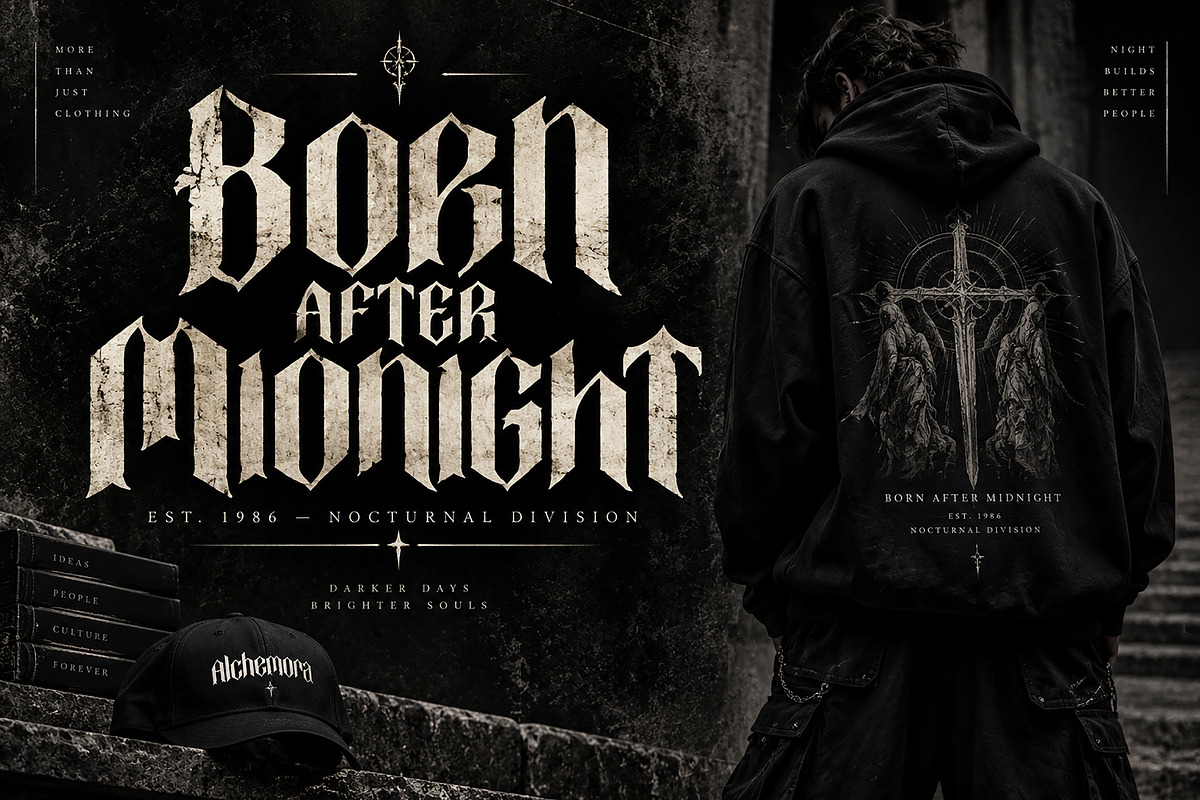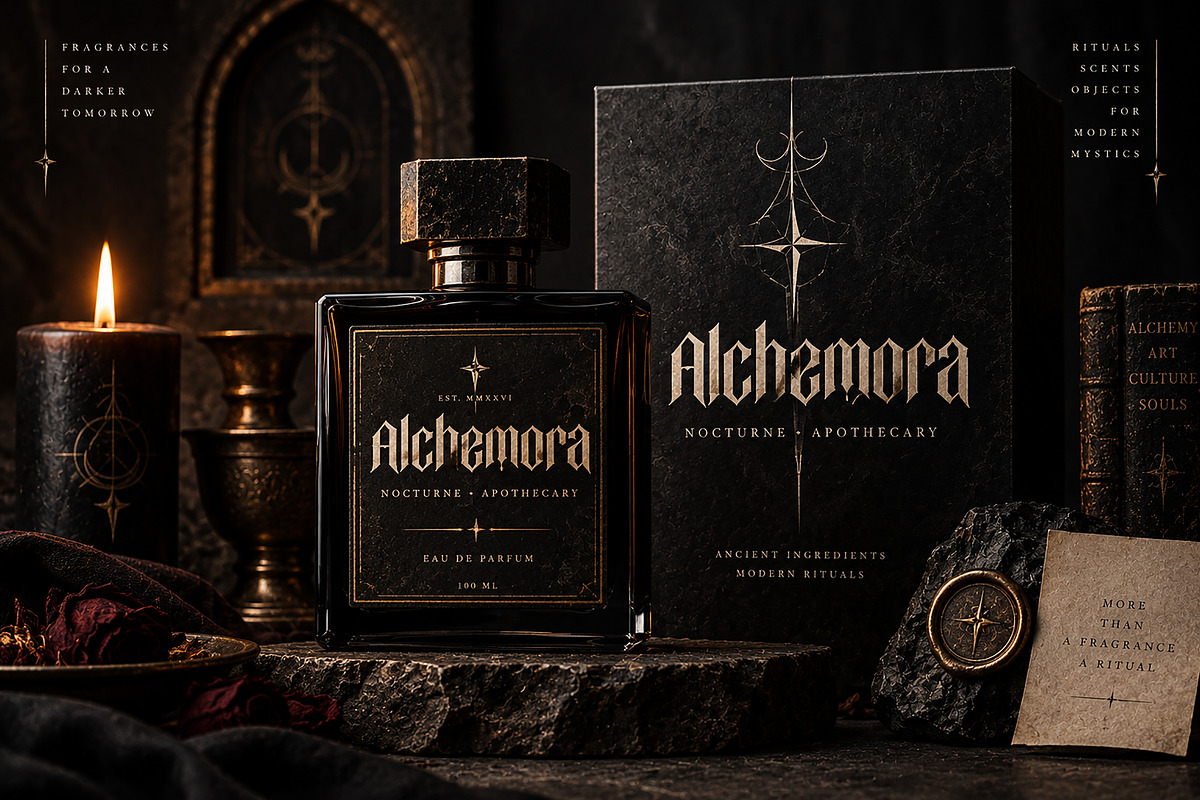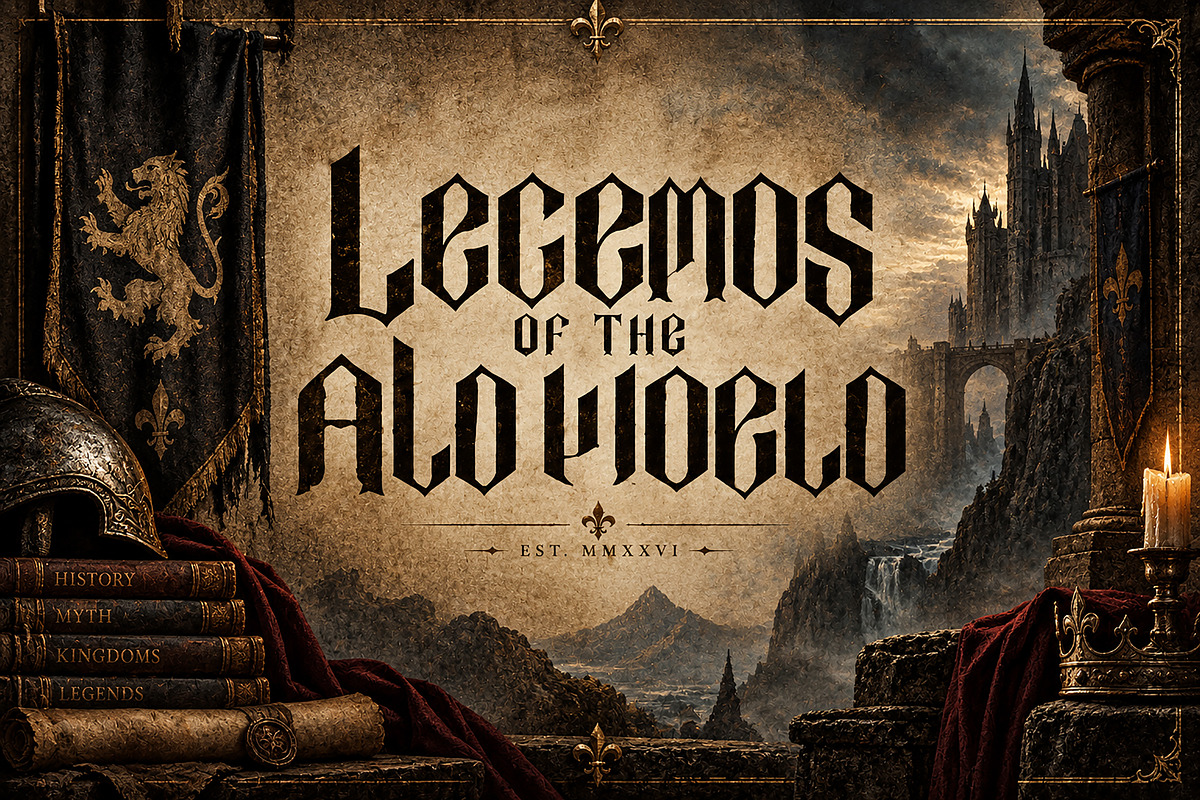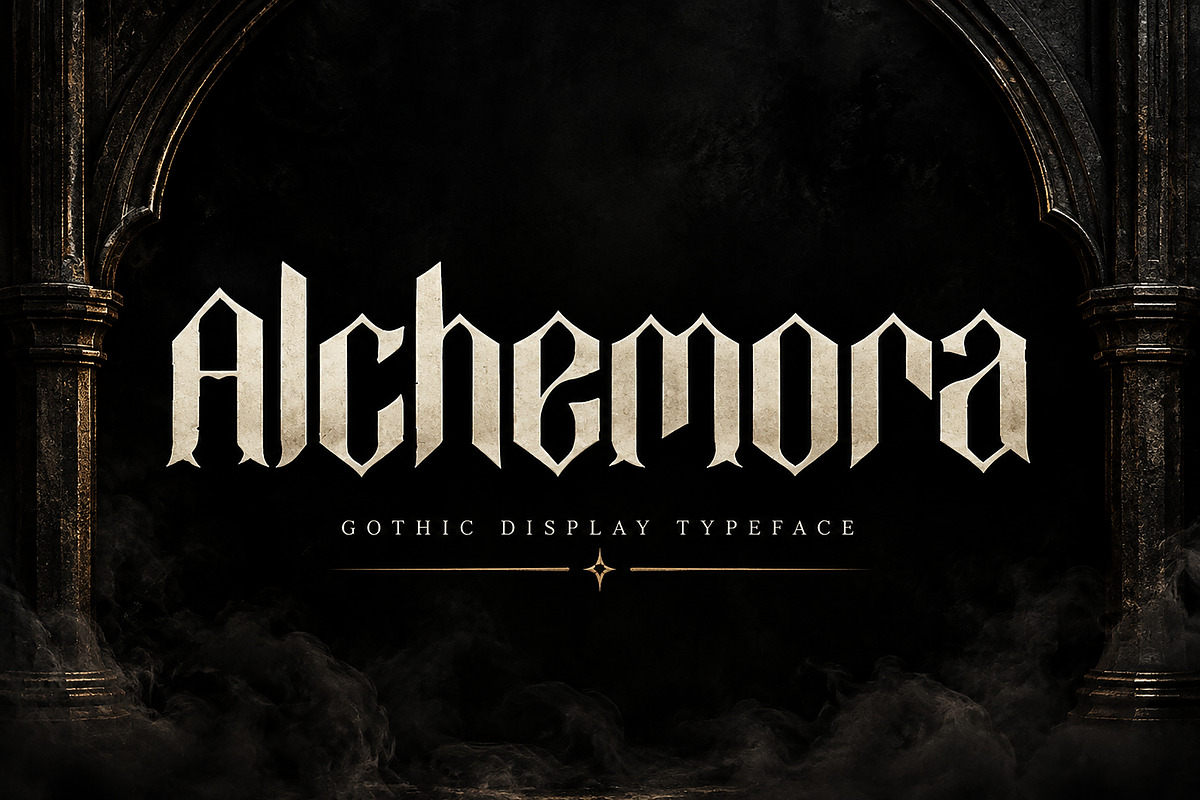
Alchemora
Alchemora — Gothic Blackletter Display Font
Alchemora is a bold and distinctive Gothic Blackletter display font inspired by medieval lettering, ancient manuscripts, dark heritage, and dramatic gothic aesthetics.
Featuring sharp angular forms, strong vertical strokes, and striking blackletter details, Alchemora is designed to create an immediate visual impact in both modern and historical-inspired designs.
Its dramatic character makes it an excellent choice for logos, branding, apparel, T-shirt designs, posters, book covers, album artwork, packaging, labels, invitations, tattoos, fantasy projects, gaming graphics, and editorial designs.
Alchemora works especially well when you need typography that feels powerful, mysterious, medieval, luxurious, and memorable.
Gothic & Blackletter Logos
Luxury Branding
Medieval Designs
Streetwear & Apparel
T-Shirts & Hoodies
Posters & Flyers
Book & Album Covers
Fantasy & Dark-Themed Designs
Tattoo Designs
Labels & Badges
Gaming & Esports Graphics
Event & Music Artwork
Editorial & Merchandise Designs
Style: Gothic / Blackletter / Medieval Display
Alchemora is built for designers who want a strong, atmospheric, and unmistakably gothic typographic presence.